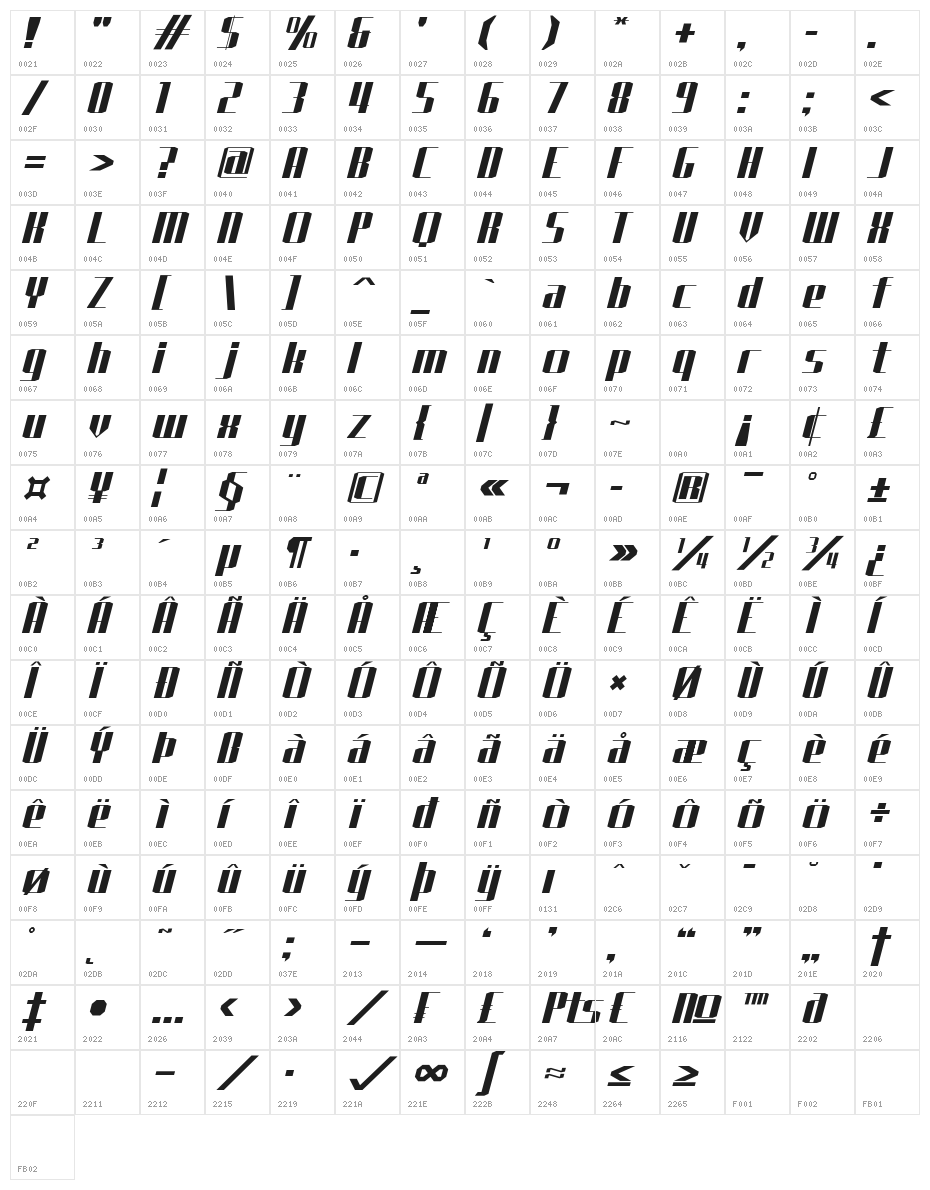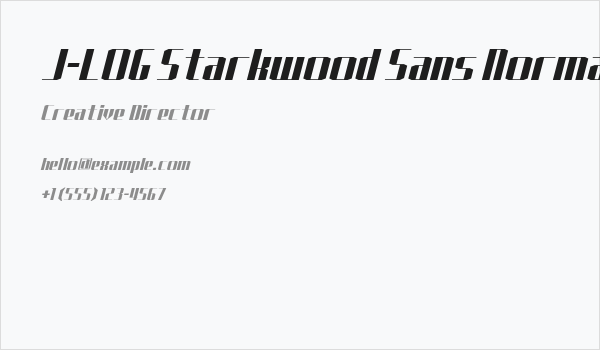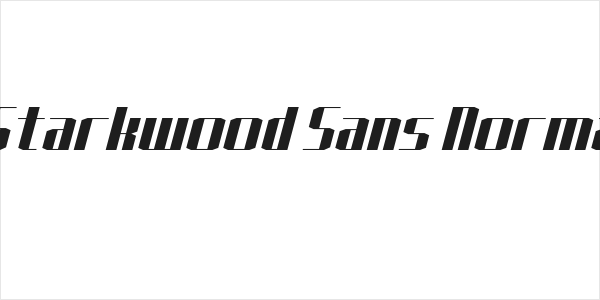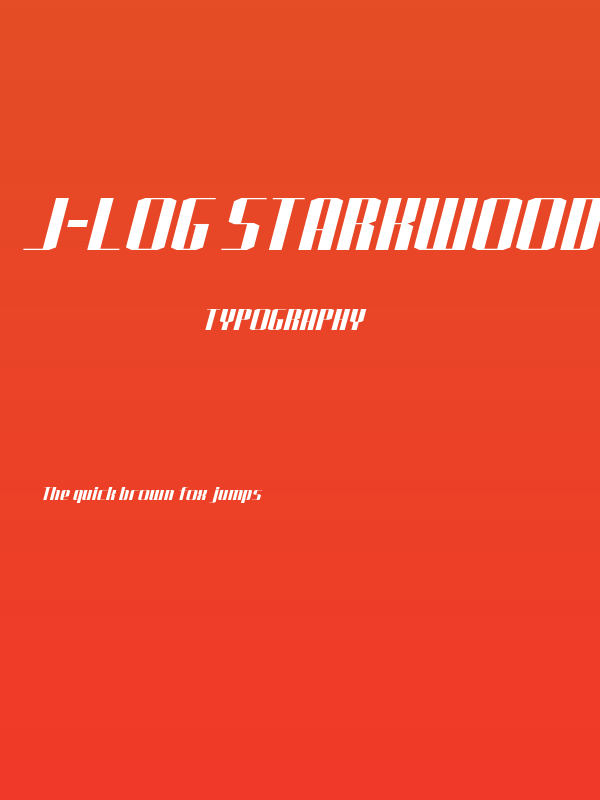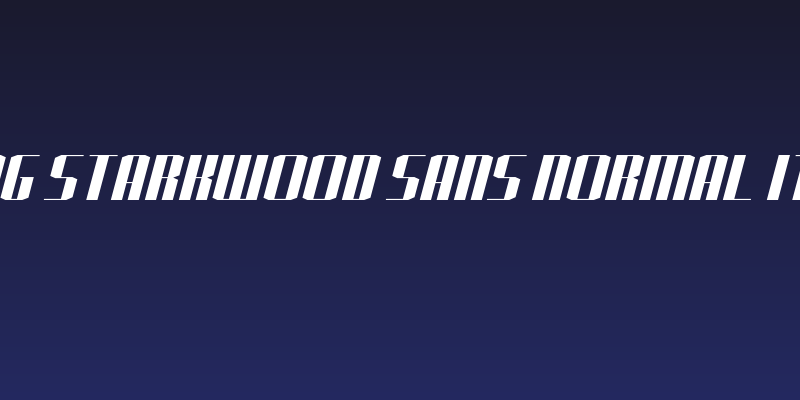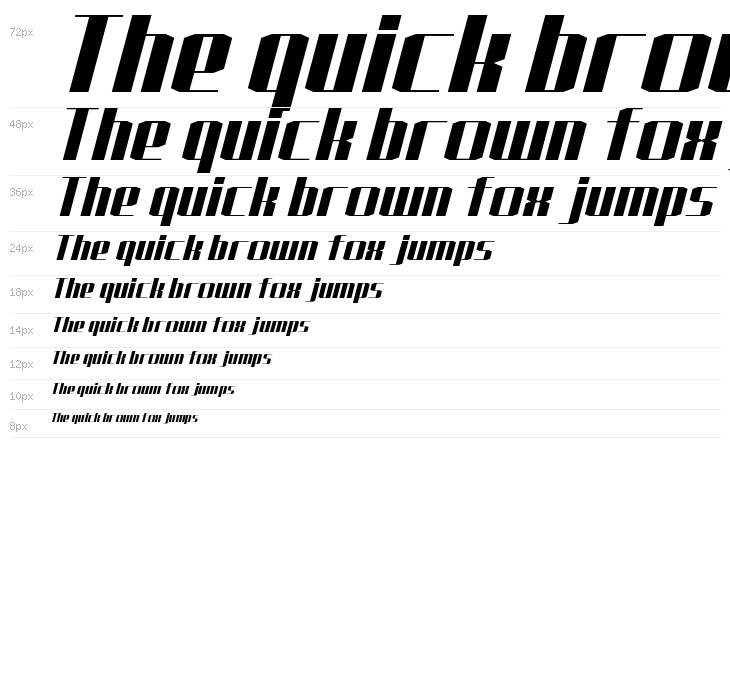
J-LOG Starkwood Sans Normal Italic Font
J-LOG Starkwood Sans Normal Italic Description
This font features a bold and dynamic design with a distinct slant, giving it an italicized appearance. The characters are sharply angular, with a futuristic and geometric style that emphasizes clean lines and sharp edges. The uppercase and lowercase letters maintain a consistent width, contributing to a uniform and cohesive look. The numerals and special characters follow the same design principles, ensuring a harmonious appearance across all elements. The overall aesthetic is modern and sleek, making it suitable for projects that require a contemporary and edgy feel.